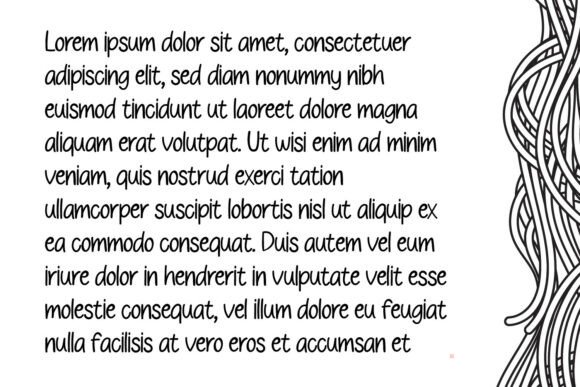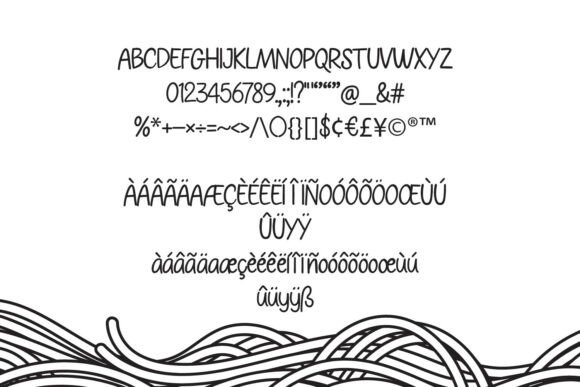
Introduction to Doodle Noodle Font
Doodle noodle is a trendy handwritten font with a contemporary atmosphere and impeccable form, inspired by timeless classic calligraphy.
It will add elegance and class to any of your design projects .
Key Features of Doodle Noodle Font
Why Choose Doodle Noodle Font?
Doodle Noodle Font offers exceptional quality and versatility, making it a valuable addition to your design toolkit. Whether you’re creating for personal projects or commercial use, Doodle Noodle Font delivers professional results.